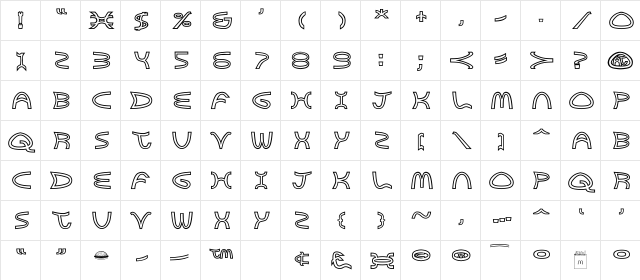
Golden Arches Outline Regular
Design Context for Golden Arches Outline Typeface
Golden Arches Outline is built around its visual character rather than neutral utility — its distinctive forms are designed to make an impression at display sizes.
Font Pairing: Pair with a clean neutral sans-serif for body copy to let Golden Arches Outline's character lead without overwhelming the composition.
Pro Tip: Use Golden Arches Outline exclusively at display sizes — it was designed to be seen, not read at length. Let a neutral companion handle body copy.